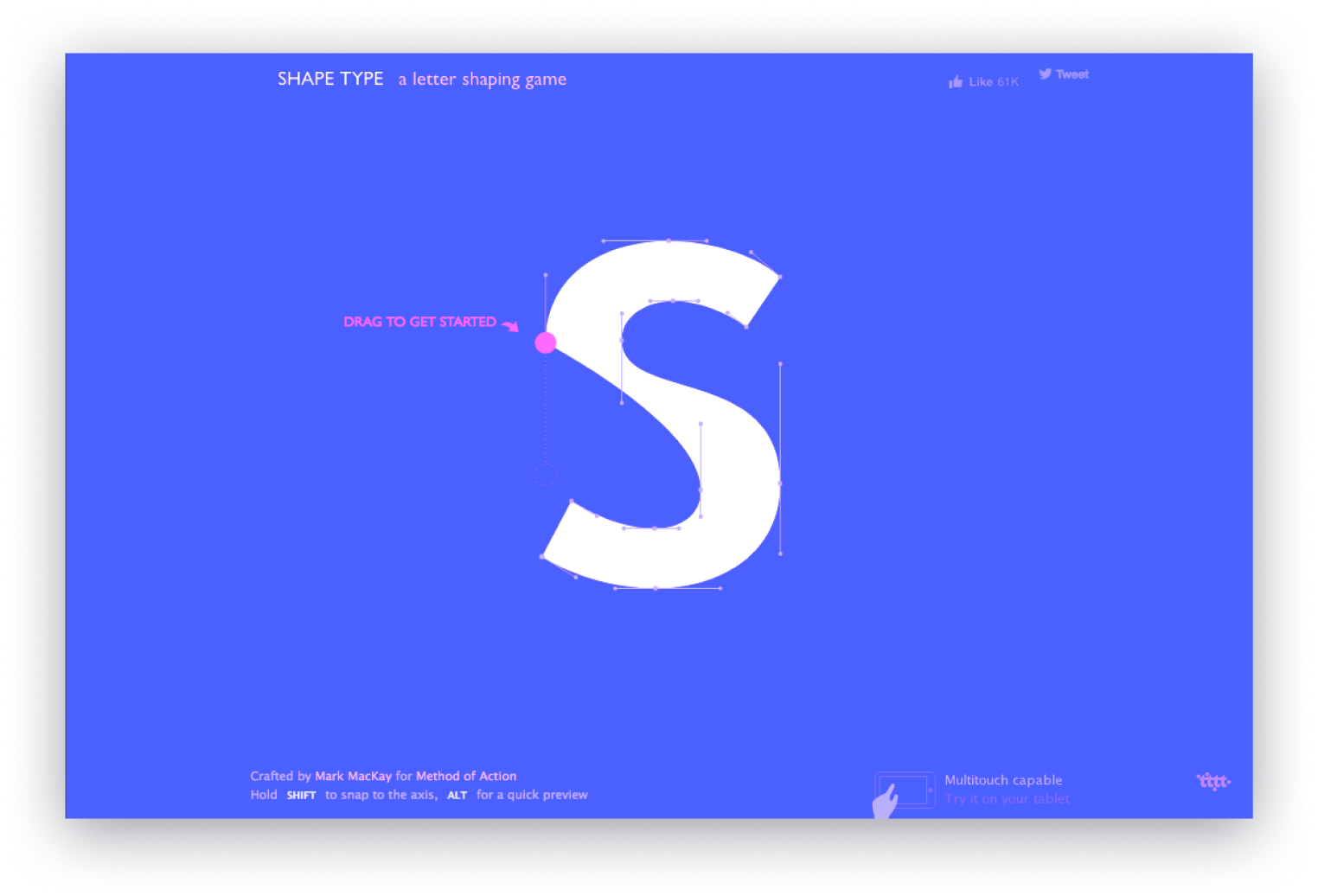
🤓 Beziers are friends, not foes 🎮
SHAPE TYPE. A 10-stage game where you have to form and fix the badly shaped, unfinished letters from specific typefaces, given the font names and fonts’ designers.
When you have adjusted multiple bezier handles to get the shape of the character right., you can visually compare your attempt with the original character and your score is a percentage based on the similarities. Time to befriend Beziers here!
📱 Meet your Screen's new BFF 📱
INTER UI. A typeface specially designed for user interfaces with focus on high legibility of small-to-medium sized text on computer screens.
Inter UI started out in late 2016 as an experiment to build a perfectly pixel-fitting font at a specific small size (11px.) The idea was that by crafting a font in a particular way, it would be possible to get the best of both sharpness and readability.
However after a few months of using an early version of Inter UI, it dawned on everyone exposed to the test that this approach had some serious real-world problems. Most notably that it was really hard to read longer text. Because of the pixel-aligning nature of that approach, the font took an almost mono-spaced appearance, making it really easy to read numbers, punctuation and very short words, but eye-straining to read anything longer. The project was rebooted with a different approach, this time crafting glyphs and kerning in a way that made for better usability and readability.
💖 Ready to play Matchmaker? 💖
TYPECONNECTION. A game that helps you learn how to pair typefaces. Literally.
The game features well-known typefaces and portrays each as a character searching for love. You are the matchmaker. You decide what kind of match to look for by choosing among several strategies for combining typefaces.
Along the way, you explore typographic terminology, type history, and more. By playing Type Connection, you deepen your own connection with type. Get busy here. 😏